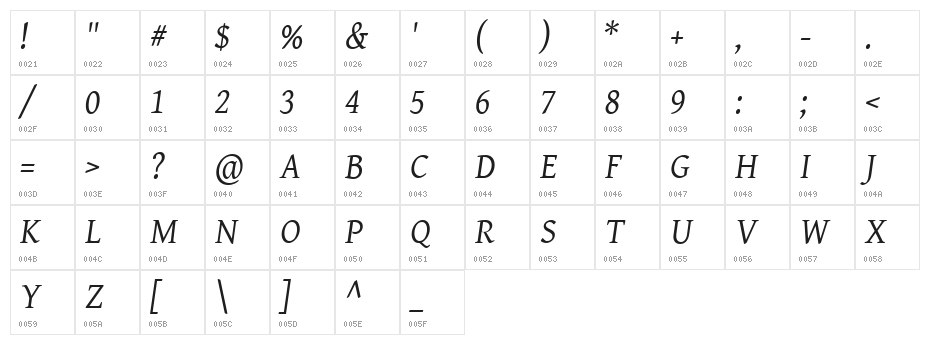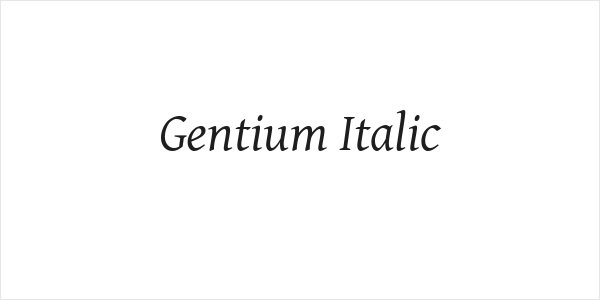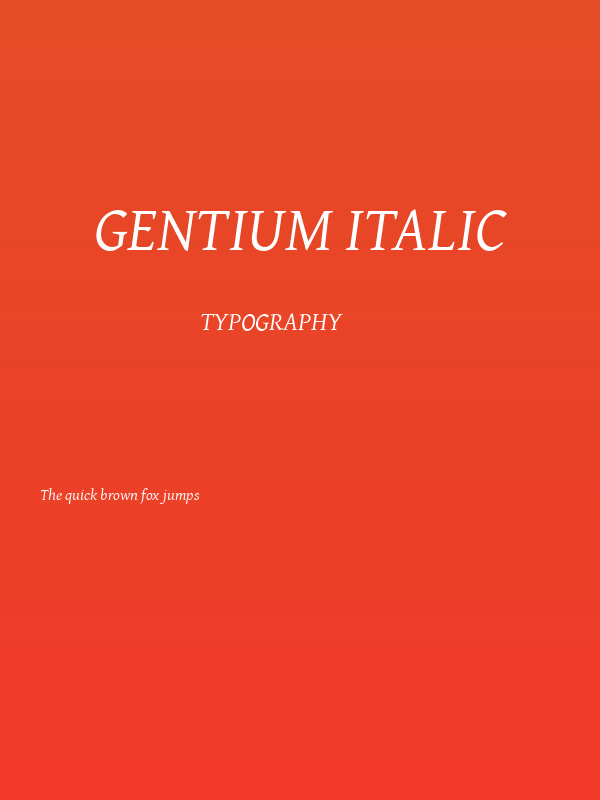
Gentium Italic Font
Gentium Italic Description
This font features a classic and elegant italic style, characterized by its smooth and flowing curves. The letters have a moderate slant, providing a sense of movement and sophistication. The serifs are subtle yet distinct, adding a touch of traditional elegance. The font maintains a consistent stroke width, ensuring readability while preserving its artistic flair. The numerals and special characters are designed to complement the alphabet, maintaining the overall aesthetic. This font is versatile, suitable for both formal and creative applications.